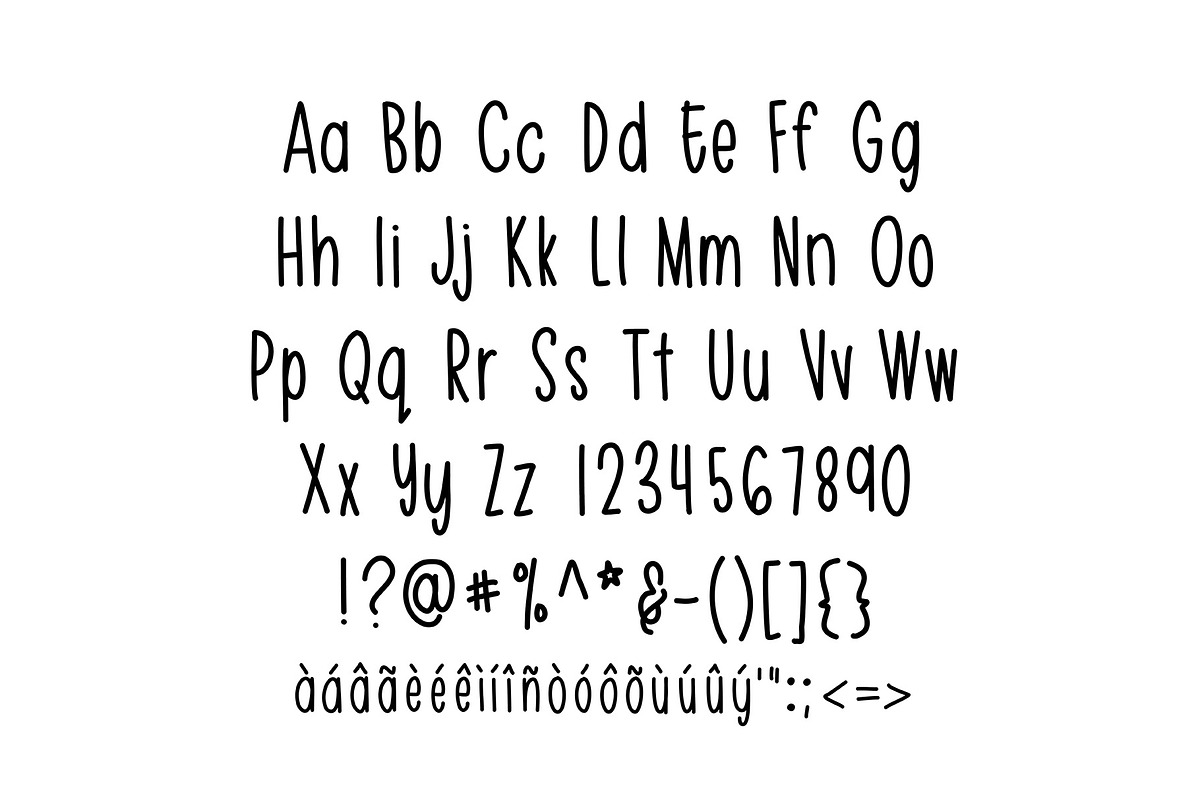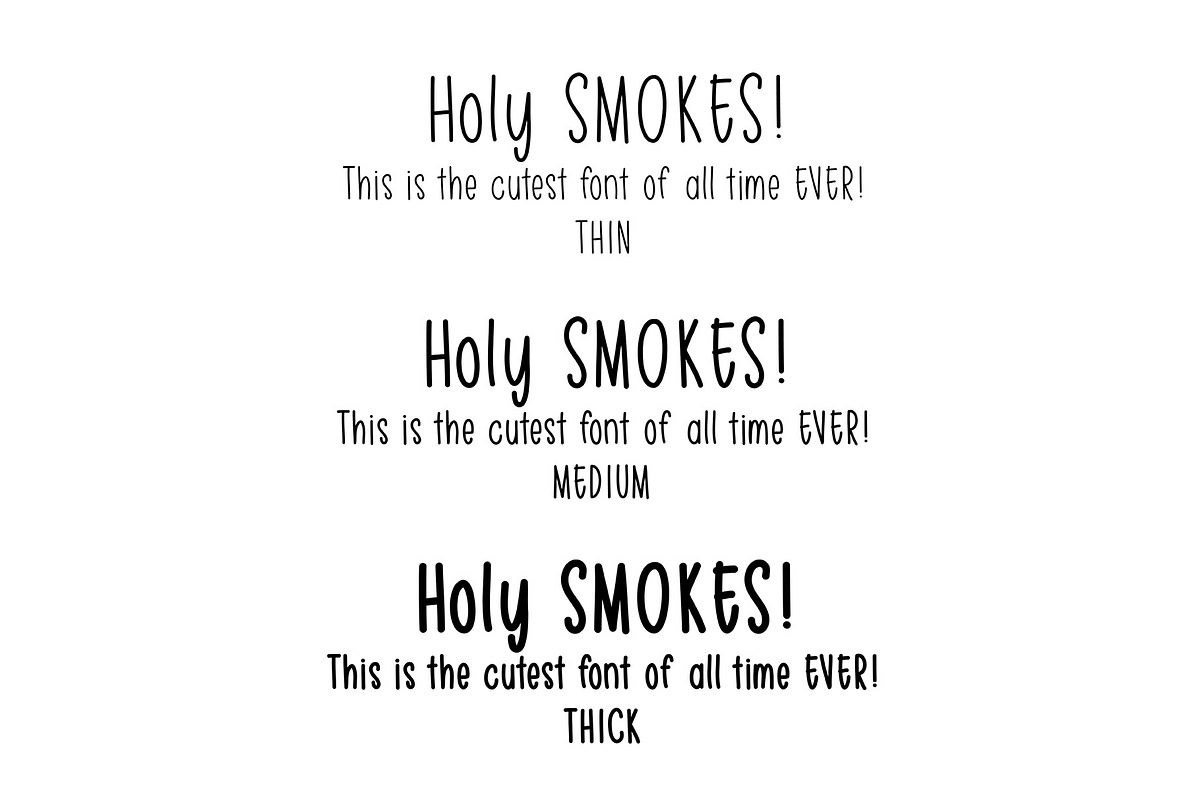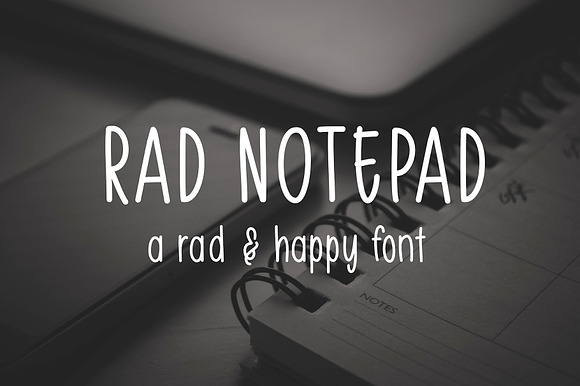
Rad Notepad - A Hand Lettered Font
Rad Notepad - a rad and happy hand lettered font offered in 3 weights
- Rad Notepad Thin
- Rad Notepad Medium
- Rad Notepad Bold